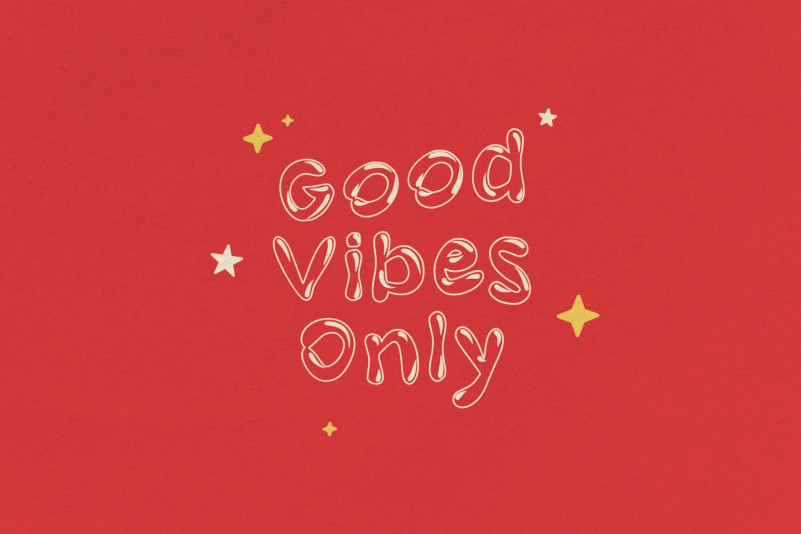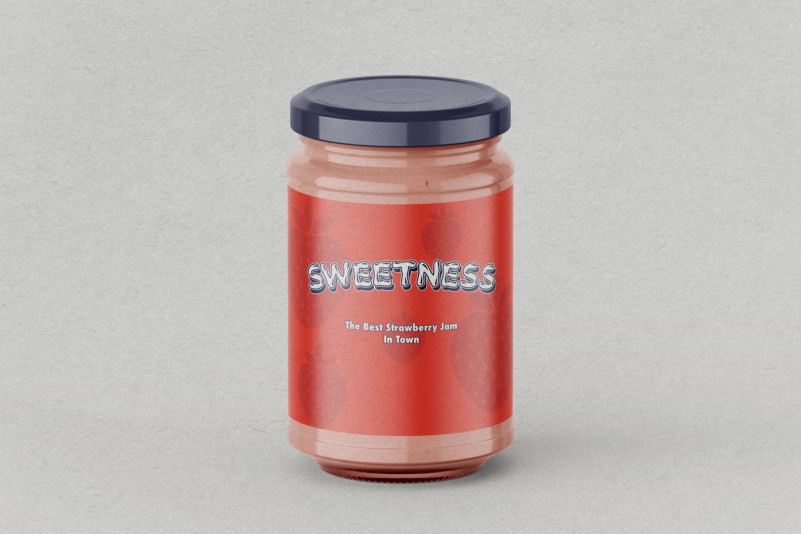
Puffy Slushy Font
Here it is! the most cheerful font on the market, besides being cheerful font, on the other hand, this font can also make your project even more attractive to look at, this font is suitable for those of you who want to make stickers, logos, quotes, or something else, what are you waiting for, choose Puffy Slushy so that your project will be even better and more pleasant.